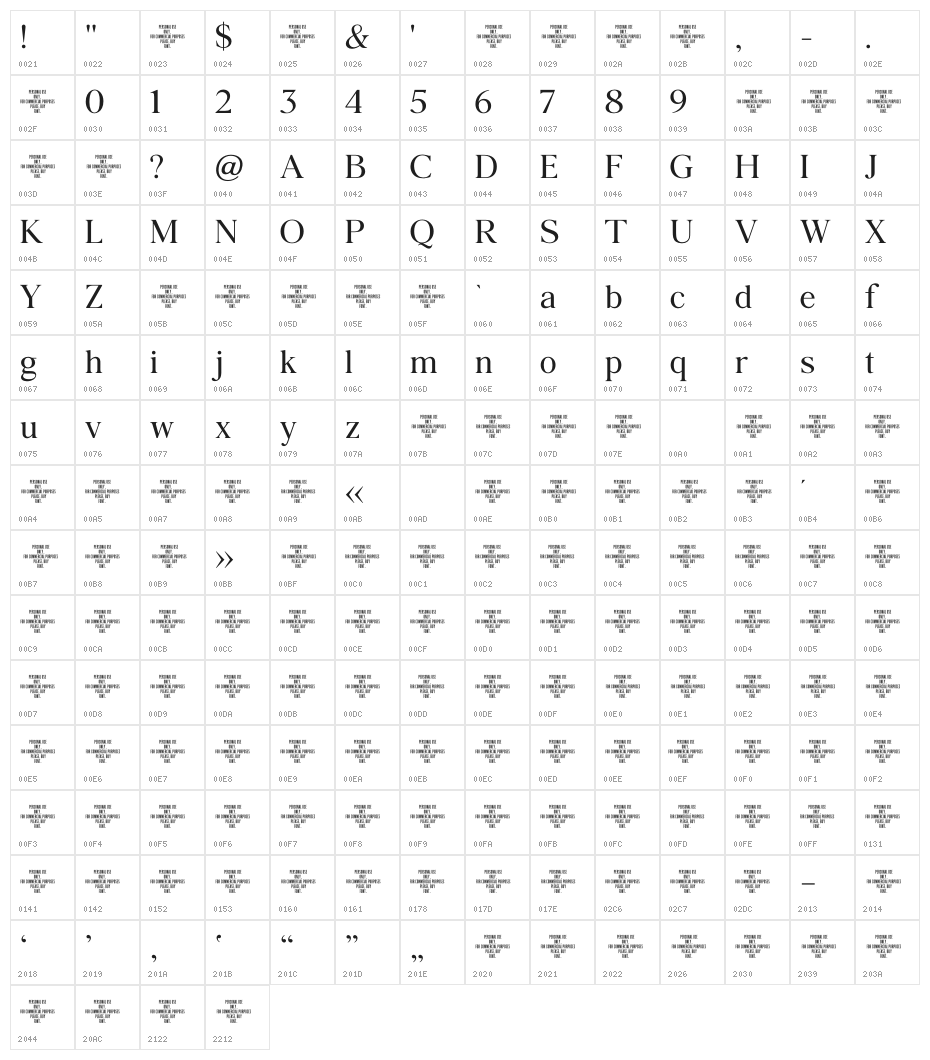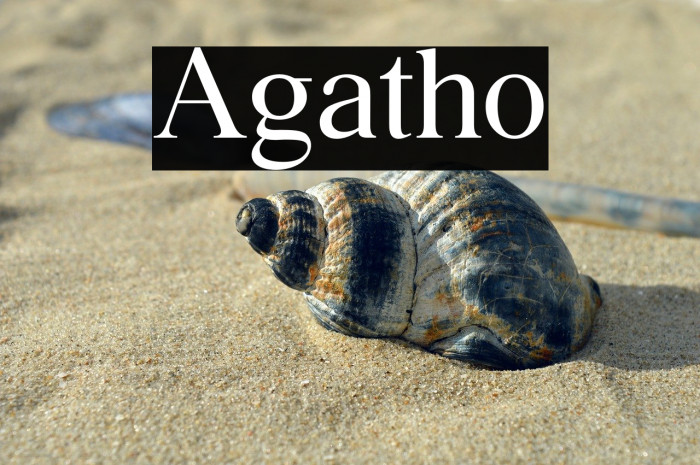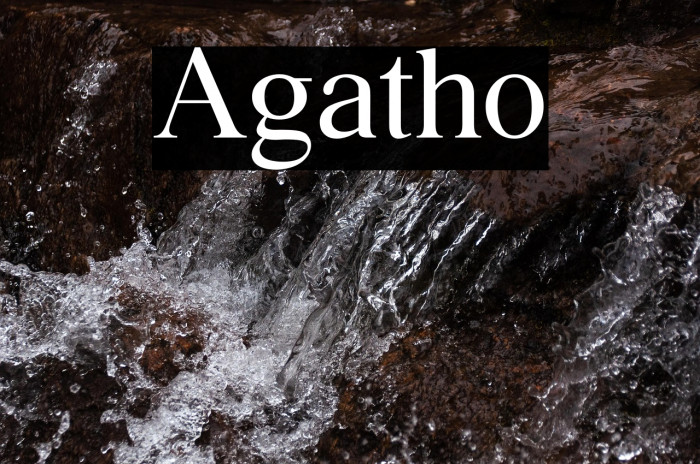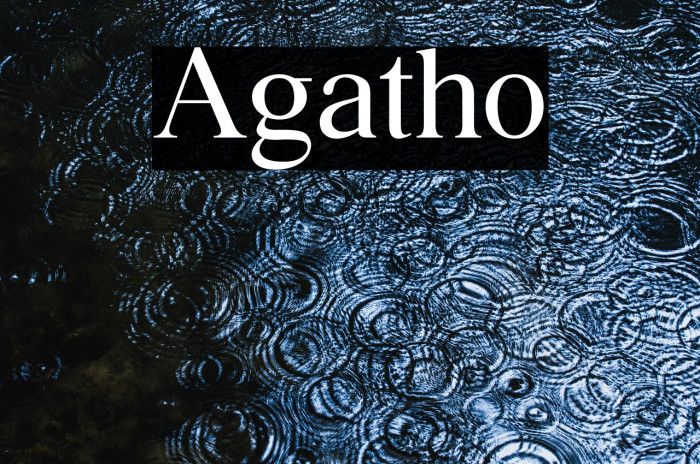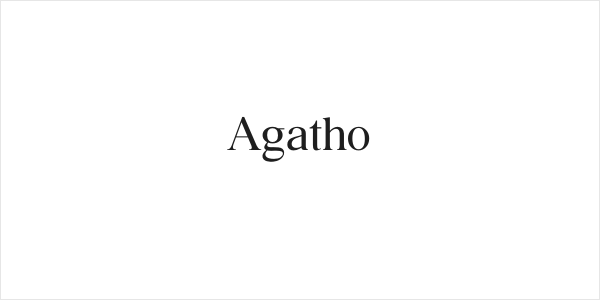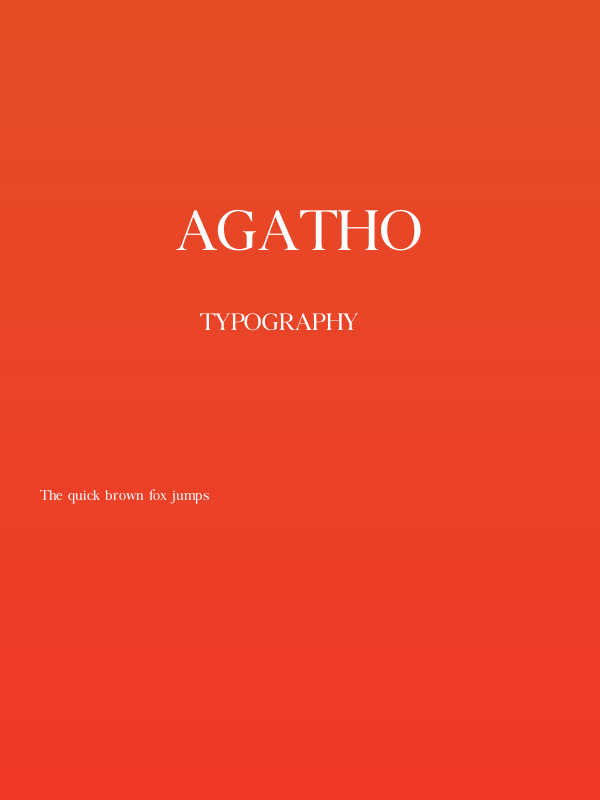
Agatho Font
Agatho Description
This font features a classic serif design with elegant, sharp serifs and a balanced proportion in its letterforms. The uppercase letters are bold and commanding, while the lowercase letters maintain a graceful and readable appearance. The numerals are clear and distinct, making them suitable for both text and display purposes. Special characters are well-integrated, maintaining the overall aesthetic of the font. The font exudes a timeless quality, making it versatile for various design applications.